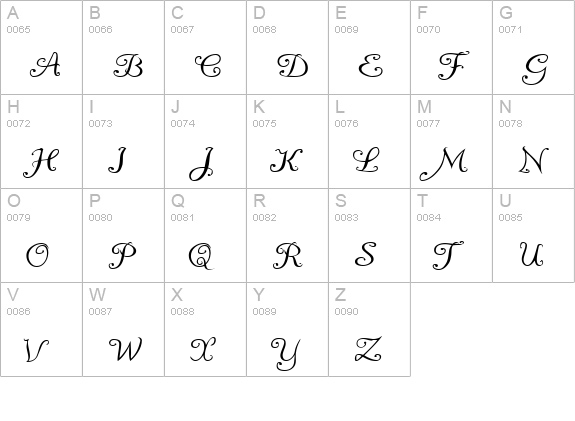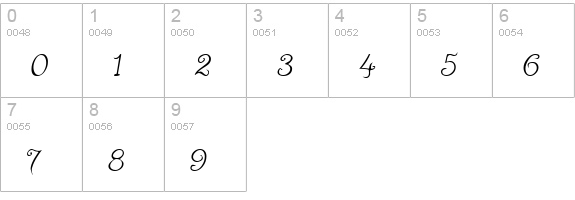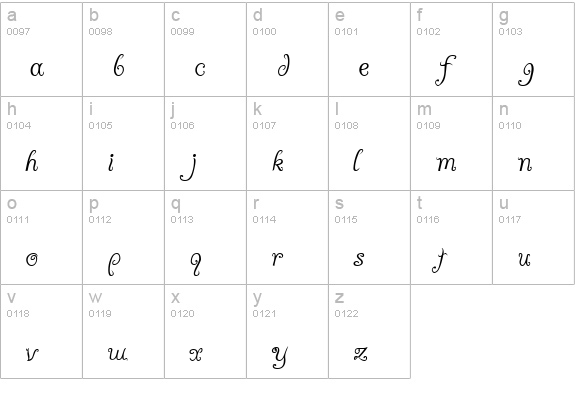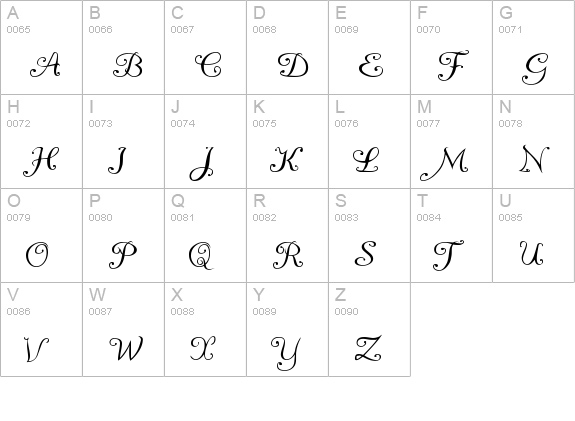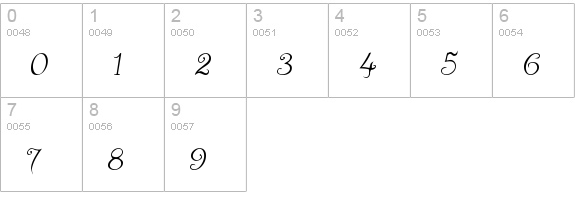
A Yummy Apology Font Details
Introducing A Yummy Apology font, a delectable typeface that will satisfy your typographic cravings and leave you craving more. This sweet and playful font is the perfect solution for adding a touch of lightheartedness to any project, whether it be a menu, a logo, or a greeting card. A Yummy Apology font is characterized by its charming and whimsical appearance, with each letter adorned with delectable details that evoke a sense of joy and indulgence. The curves and swirls of the letters mimic the fluidity and deliciousness of a freshly baked treat, making it impossible to resist its irresistible charm. But what makes A Yummy Apology font truly irresistible is the fact that it is freely available to download at FontsMarket.com. Yes, you read that right – this mouthwatering font can be yours without spending a dime. Just head over to FontsMarket.com, and with a few simple clicks, you can have A Yummy Apology font at your fingertips, ready to add a touch of sweetness to your designs. Whether you're a professional designer looking for a delightful addition to your font library or a hobbyist seeking a fun and free font for a personal project, A Yummy Apology font is the perfect choice. Its versatility and playful nature make it suitable for a wide range of creative endeavors, ensuring that your designs will be as delightful as the font itself. So why wait? Indulge your design senses and satisfy your typographic cravings with A Yummy Apology font. Download it for free at FontsMarket.com and let your creativity soar to new, delicious heights.